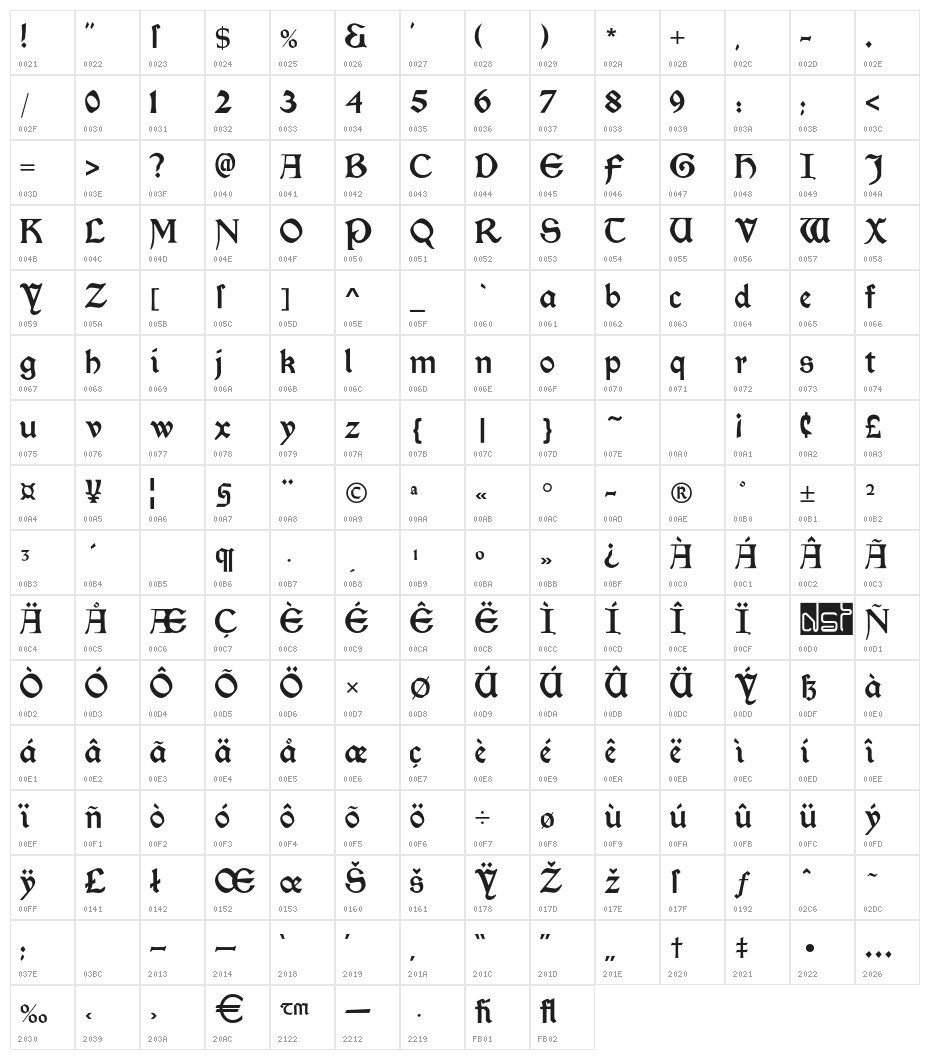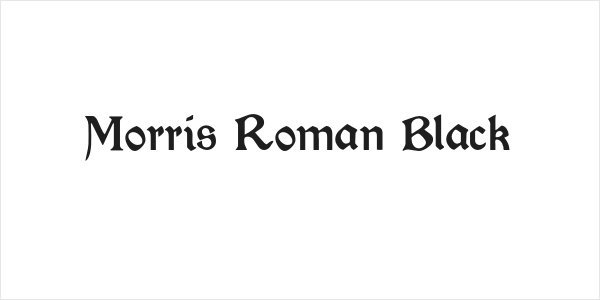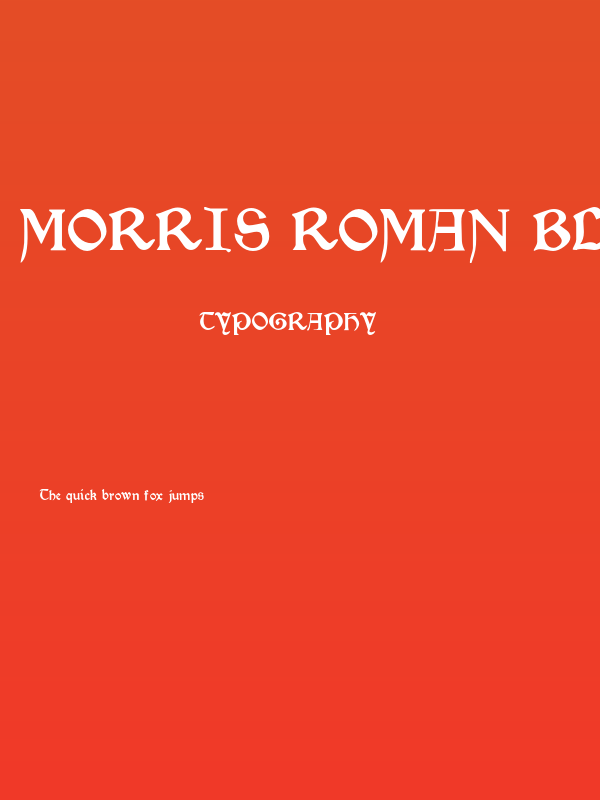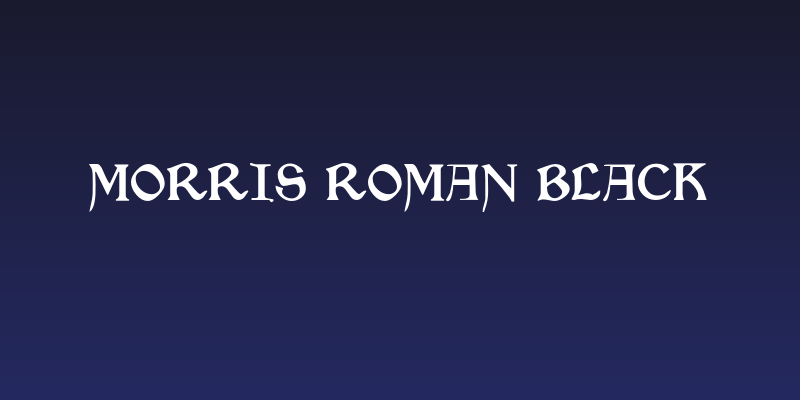
Morris Roman Black Font
Morris Roman Black Description
This font features a bold and dramatic style with a strong blackletter influence. The uppercase letters are characterized by sharp, angular lines and intricate details, giving them a gothic and medieval appearance. The lowercase letters maintain the same stylistic elements, with a slightly more rounded and flowing form. The numerals are bold and consistent with the overall theme, providing a cohesive look. Special characters are uniquely designed, adding to the font's decorative appeal. This font's striking appearance makes it ideal for projects that require a touch of historical or fantasy elements.
| Use Case | Headlines, Logos, Decorative text |
| Proposed Projects | Ideal for book covers, posters, branding for fantasy or historical themes, and decorative headings. |